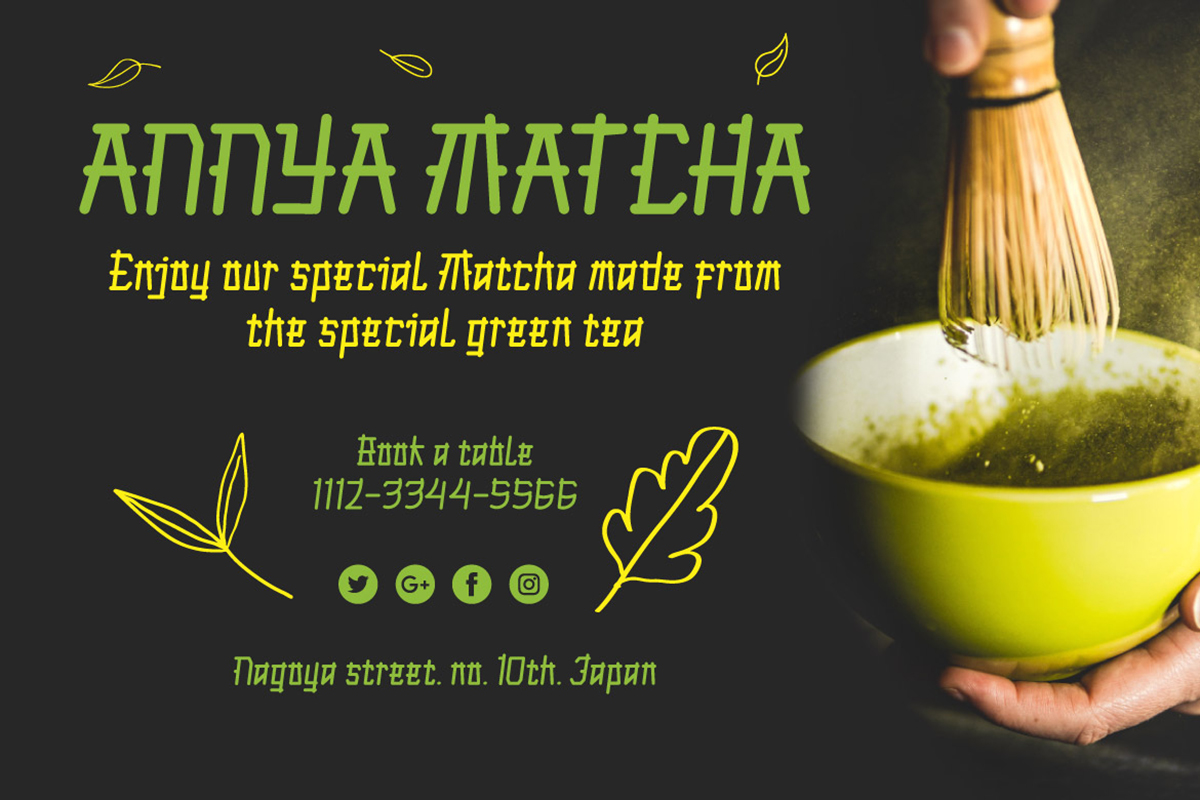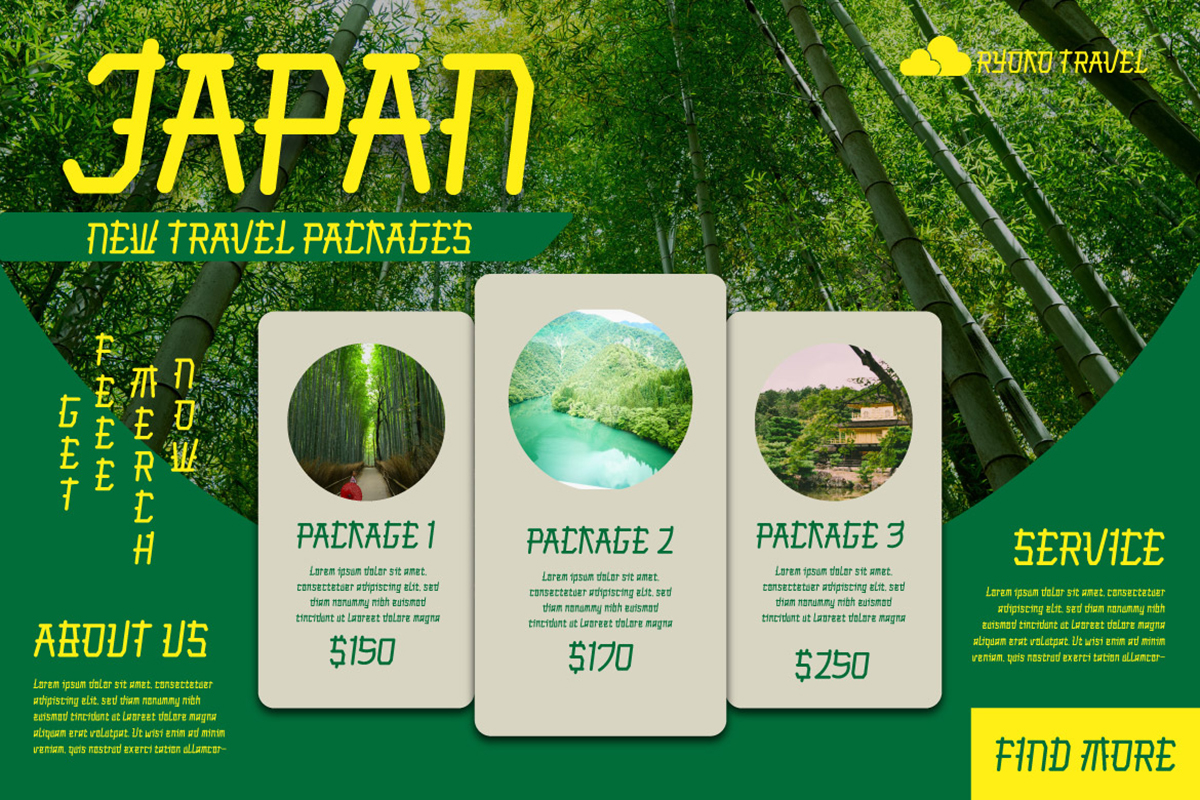
Samuri Free Font
Samuri Free Font is a fresh display font infused with captivating Japanese-style elements, meticulously crafted to exude an exotic and soothing charm. When you incorporate this font into your project, it effortlessly elevates its appeal, endowing it with an exquisite and enchanting aura that will delight all who lay eyes upon it. Unparalleled in its uniqueness, your project will stand out as a true original. Optimize your design with Samuri for an extraordinary impact. This free typeface was designed by a talentedΒ Twin Letter. If you like it don’t forget to check out the full version.